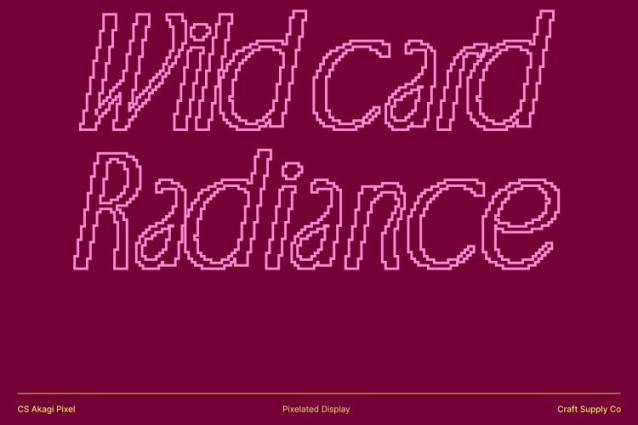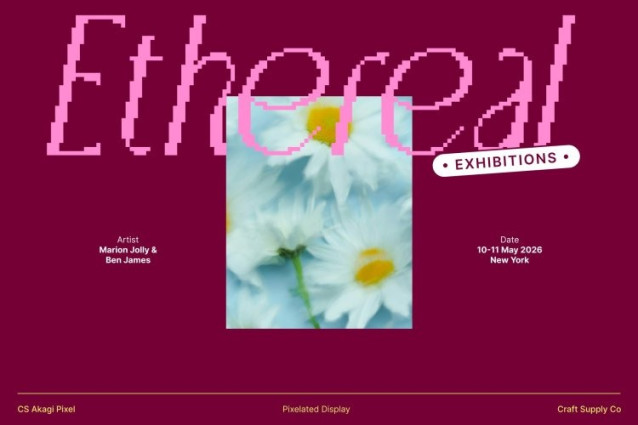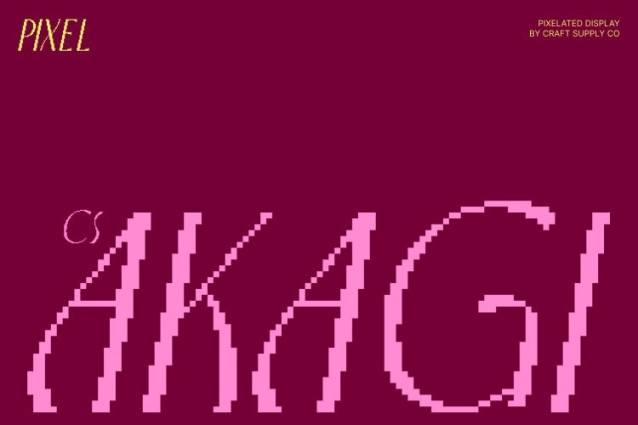
CS Akagi Pixel Font
CS Akagi Pixel Font This reimagines elegant Art Nouveau-inspired letterforms in a sharp, pixelated style. Each character retains the graceful curves and flowing movement of the original design but rendered with crisp 8-bit precision, blending timeless sophistication with a retro-digital aesthetic. The result is a typeface that feels artistic, refined, and perfectly suited for modern, digital-friendly compositions.
Organic Curves Meet Pixel Geometry
The smooth, natural curves of the original font are translated into pixel-perfect forms, preserving the sense of motion and elegance while adding a playful, retro edge. Subtle quirks and flowing lines become structured yet expressive, balancing the warmth of Art Nouveau with the geometric clarity of digital typography. This gives the font a unique, eye-catching presence for both display and digital media.
Timeless Style with Modern Digital Adaptation
By fusing classic Art Nouveau sophistication with pixel-inspired design, this font works beautifully in both traditional and modern contexts. Its clean sans serif foundation ensures readability, while its pixelized curves bring a contemporary, retro-digital feel, making it versatile for editorial, branding, and creative projects that want elegance with a digital twist.
Perfect for Fashion, Luxury, and Retro-Digital Designs
Ideal for premium branding, editorial layouts, packaging, and digital campaigns, this font delivers refined elegance with a nostalgic 8-bit aesthetic. This font combines high-end sophistication with pixelated artistry, giving your designs a memorable, stylish, and modern-retro flair.